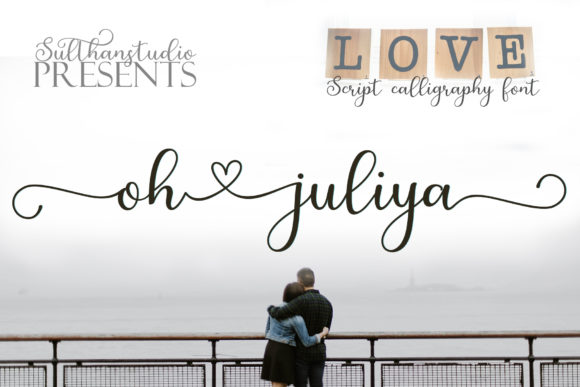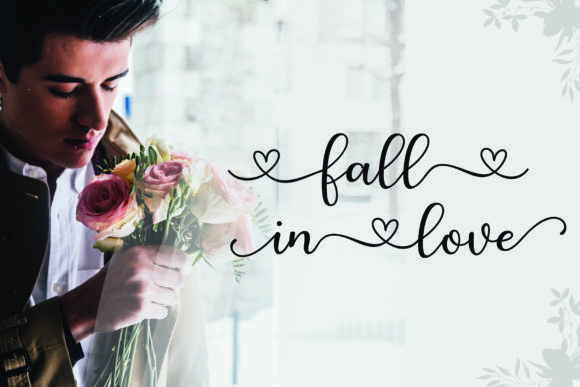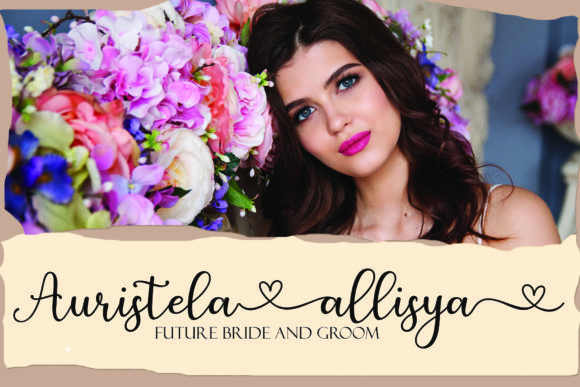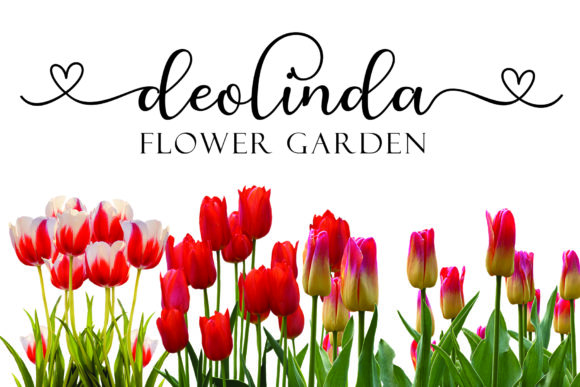
Oh Juliya Font
About the Oh Juliya Font
Let us introduce you to Oh Juliya Font, where timeless design meets modern craftsmanship. Oh Juliya is a new cute calligraphy font with a hearts that can be connected. It can add a romantic touch to any crafting project!
Oh Juliya’s playful, romantic style is ideal for projects requiring a touch of whimsy. It works exceptionally well in headlines, short text blocks on invitations or greeting cards, and social media graphics. Consider it for branding projects focused on feminine products, wedding stationery, or artisanal crafts. However, its decorative nature makes it less suitable for body text or UI elements where readability is paramount. Long paragraphs set in Oh Juliya would be difficult to read.
Pairing Oh Juliya effectively requires a contrasting font to maintain visual balance. A clean sans-serif like Montserrat or a simple serif such as Lora would provide excellent contrast and enhance readability when used alongside it. For a more playful feel, a rounded geometric sans-serif could also complement its curves effectively.
Its overall personality is best described as charming and light-hearted, making it a perfect choice for brands seeking to communicate a friendly and approachable image.